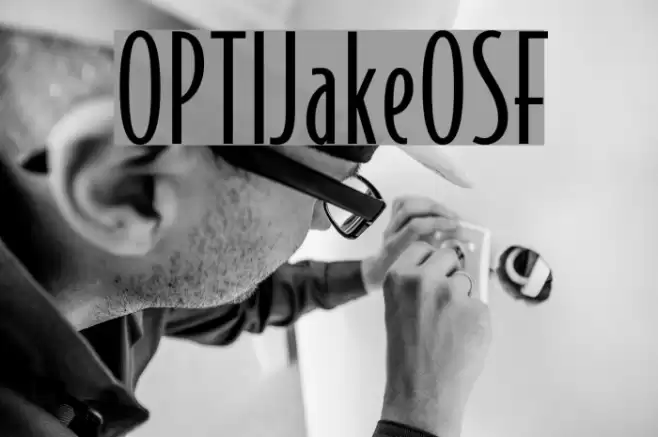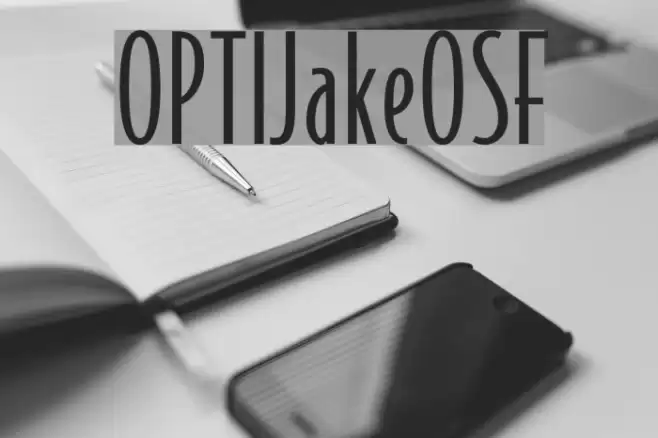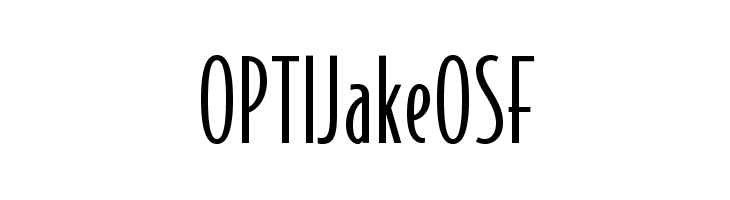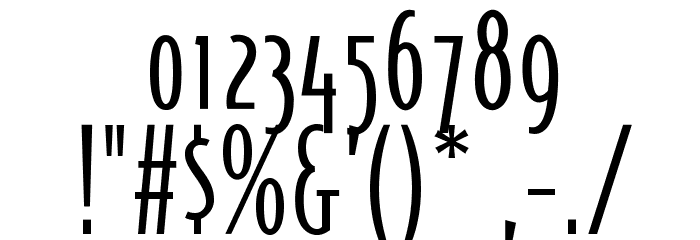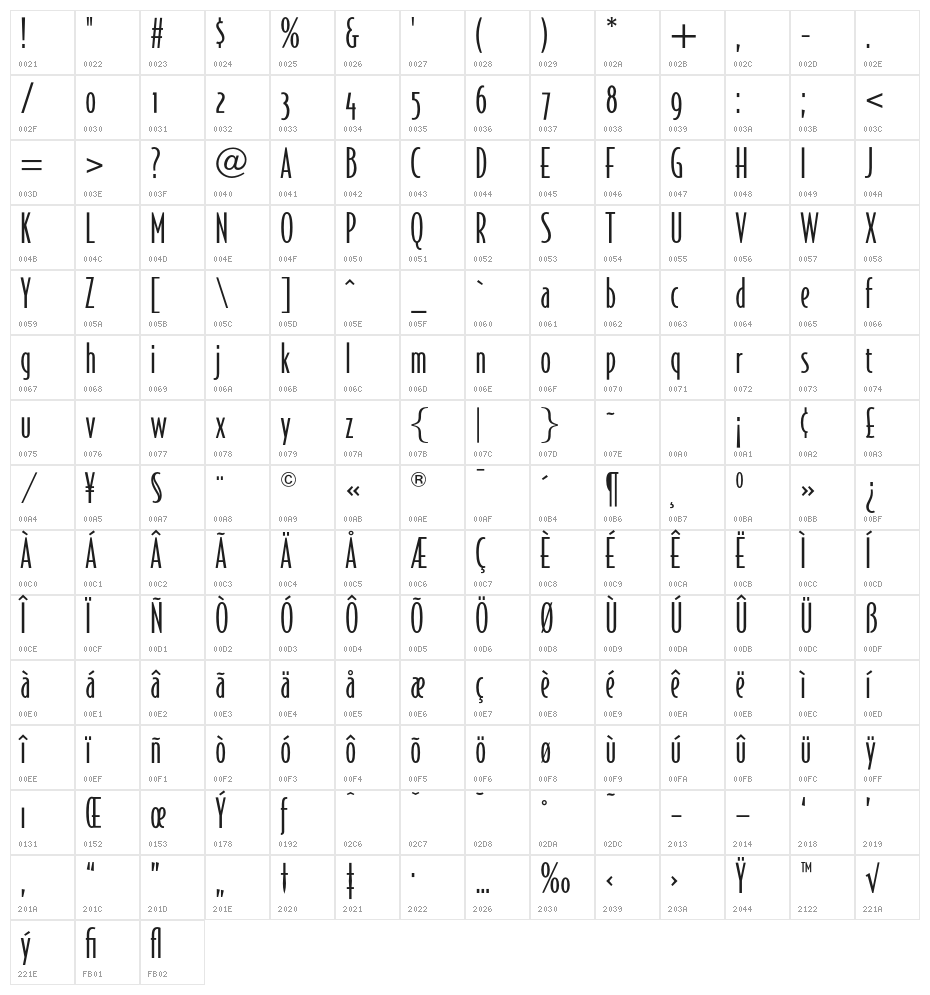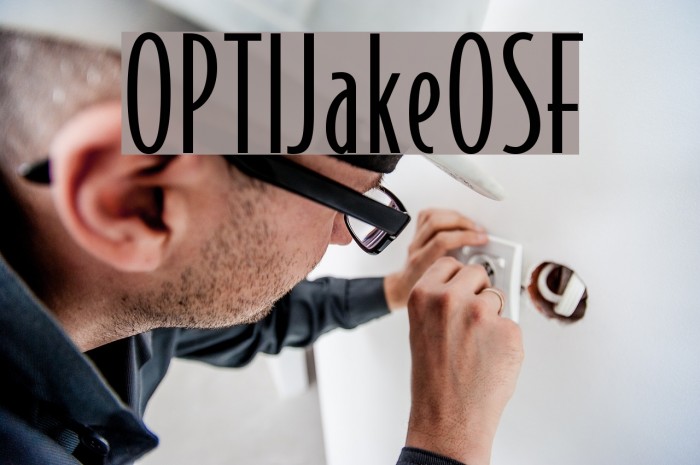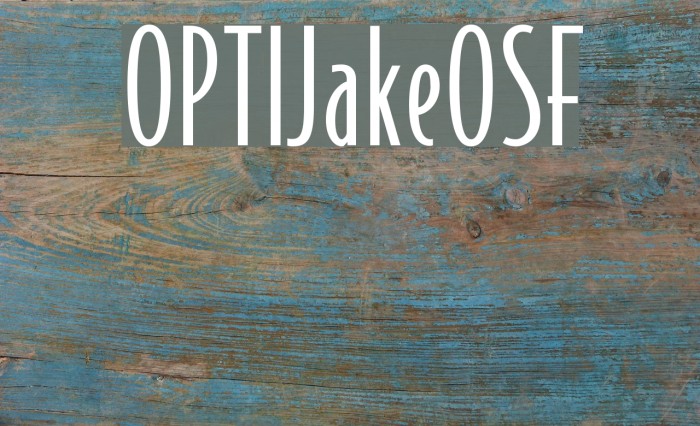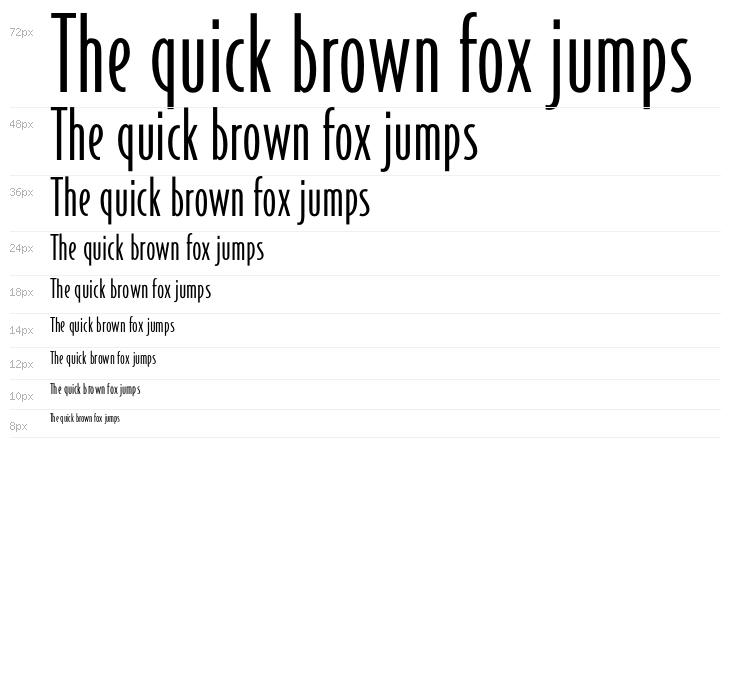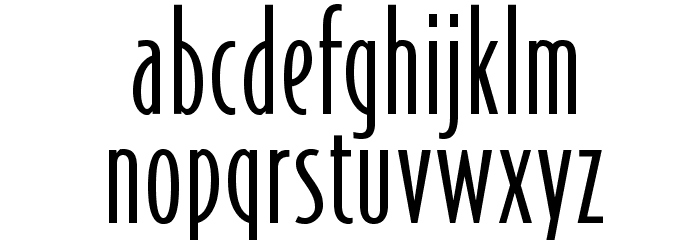
OPTIJakeOSF Font
OPTIJakeOSF Description
This font features a tall, narrow design with a distinctively modern and sleek appearance. The characters are elongated, giving it a sophisticated and elegant look. The uppercase letters are particularly striking, with a uniform height that enhances the font's streamlined aesthetic. The lowercase letters maintain the same narrow proportions, ensuring consistency across the typeface. Numbers and special characters are designed to match the overall style, with clean lines and minimal embellishments. The font's simplicity and clarity make it highly legible, even at smaller sizes.
A tall, narrow, and modern font with a sleek and elegant appearance from Uncategorized fonts.
- Proposed Projects: Ideal for fashion magazines, luxury branding, modern websites, and minimalist design projects.